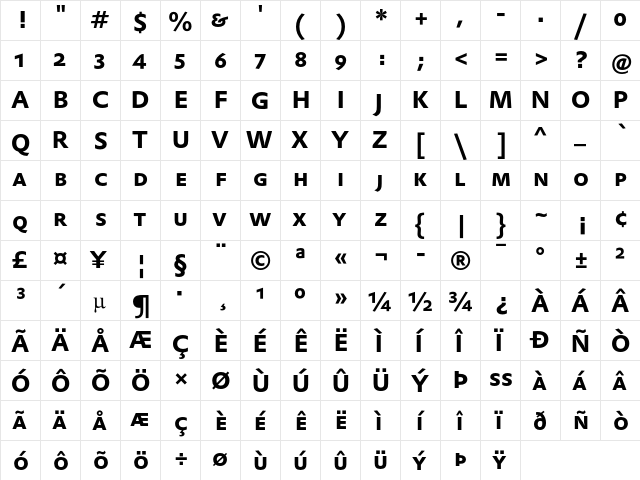
DTLProkyonTCaps Bold Font Preview
DTLProkyonTCaps Bold
Design Context for DTLProkyonTCaps Typeface
DTLProkyonTCaps offers clean, dependable letterforms without strong stylistic allegiance, making it a practical choice for designers who need flexibility. The heavy weight commands attention and anchors typographic hierarchies.